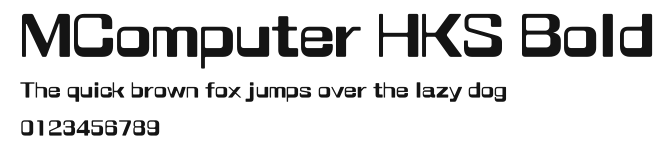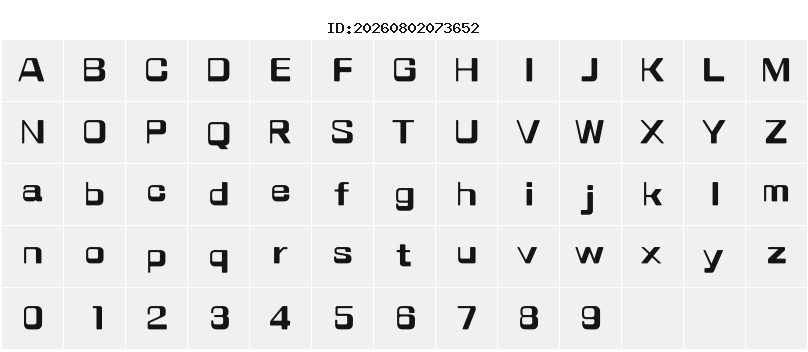
• Font Name: MComputer HKS Bold
• Font ID: MComputer HKS Bold
• Full Font Name: MComputer HKS Bold
• PostScript Name: MComputerHKS-Bold
• Manufacturer: Monotype Imaging Inc.
About MComputer HKS Bold.ttf
MComputer HKS Bold.ttf is a modern, elegant sans-serif font designed for ultimate readability and visual harmony. Perfect for branding, headlines, web design, and print materials.